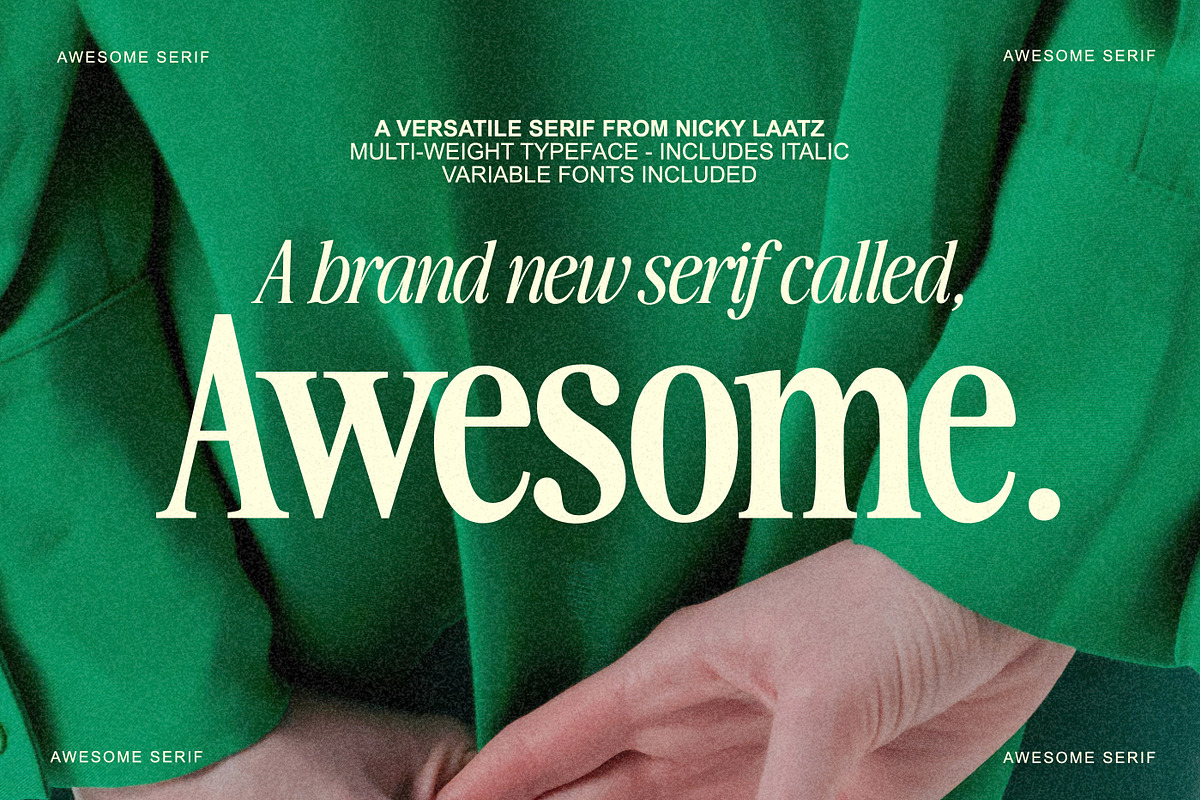
Introducing Awesome Serif, a dynamic and stylish serif type family designed to offer unparalleled versatility for a wide range of design projects. This extensive collection features 30 fonts in total, encompassing multiple weights and heights, available in both Regular and Italic styles. Additionally, Awesome Serif includes two variable fonts, providing advanced flexibility for users with compatible software, allowing seamless customization of weight and style.
Stylish with a Retro Edge
Awesome Serif stands out by blending contemporary style with a nostalgic retro flair. Its design captures the essence of vintage typography while maintaining a modern sensibility, making it an ideal choice for designers who want to infuse their work with both sophistication and character. Whether you aim to create delicate, refined projects or bold, edgy retro designs, Awesome Serif adapts effortlessly to your creative vision.
Multi-Weight and Multi-Height Flexibility
The type family’s extensive range of weights and heights empowers designers to experiment with typographic hierarchy and expression. From light, airy styles that convey elegance and subtlety to robust, heavy weights that command attention, Awesome Serif offers a comprehensive toolkit for crafting diverse visual narratives. The inclusion of Italic styles further enhances this flexibility, allowing for nuanced emphasis and stylistic variation.
Variable Fonts for Enhanced Control
Awesome Serif’s two variable fonts unlock new possibilities for typographic customization. Variable fonts enable smooth transitions between different weights and styles within a single font file, streamlining workflow and reducing file sizes. This feature is especially valuable for designers working in modern software environments that support variable fonts, such as Adobe Creative Cloud applications and contemporary web browsers.
Applications and Use Cases
Awesome Serif’s versatility makes it suitable for a broad spectrum of design applications, including:
- Branding and Identity: Create memorable logos and brand materials that balance retro charm with modern elegance.
- Editorial Design: Enhance magazines, books, and digital publications with sophisticated typography that adapts to various content needs.
- Advertising and Packaging: Develop eye-catching headlines and packaging designs that stand out on shelves and in media.
- Web Typography: Utilize the web-font options and variable fonts for responsive, high-quality typography across digital platforms.